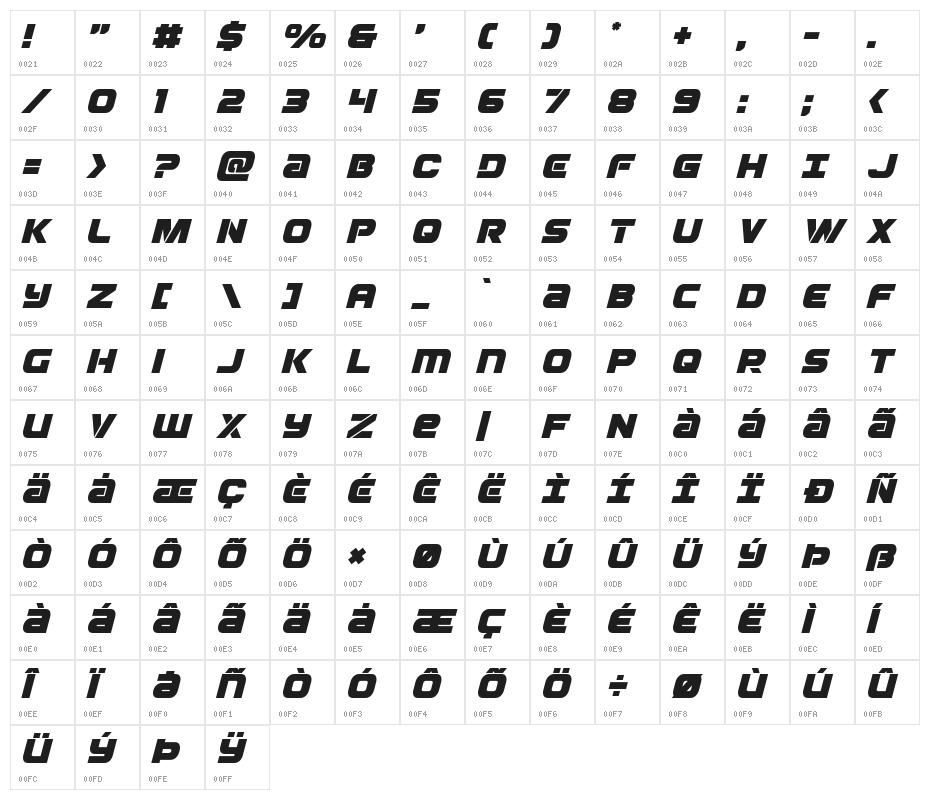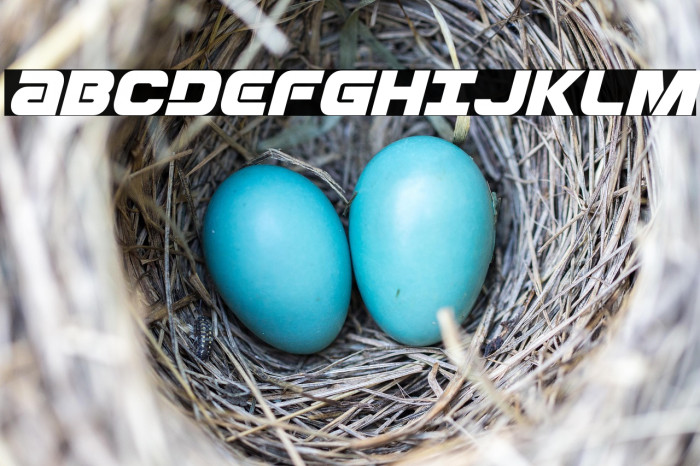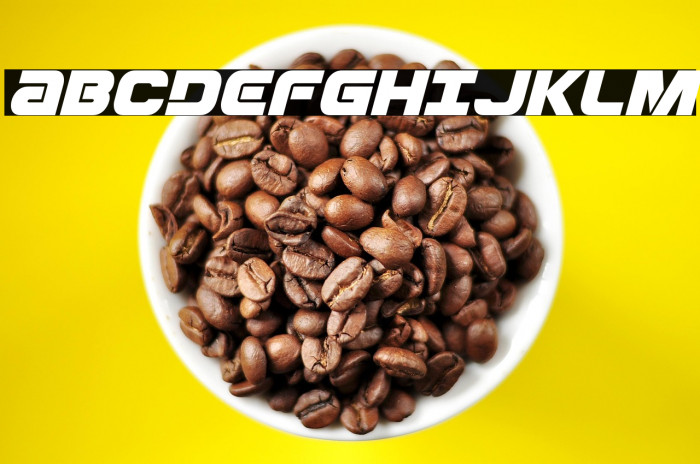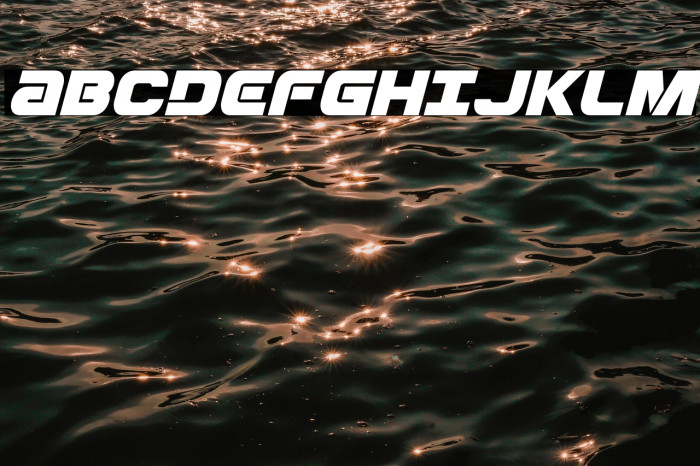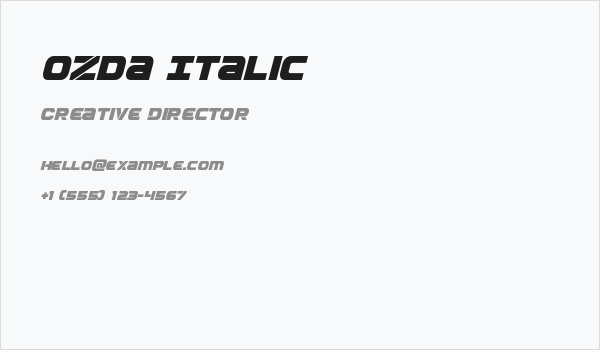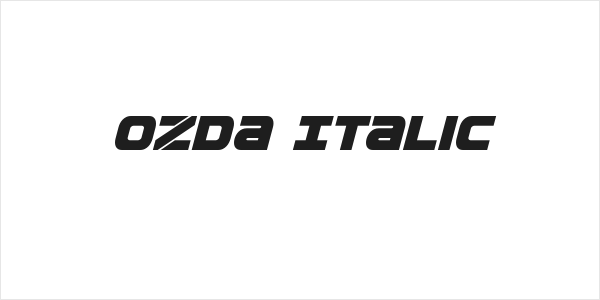
Ozda Italic Font
Ozda Italic Description
This font exhibits a bold and dynamic style with a strong italic slant, giving it a sense of motion and speed. The characters are wide and robust, featuring sharp angles and a futuristic aesthetic. The uppercase and lowercase letters maintain a consistent design, with the lowercase being slightly more compact. The numerals are equally bold, ensuring legibility and impact. Special characters are designed to match the overall bold and angular theme, making them suitable for attention-grabbing designs.
| Proposed Projects | Ideal for sports branding, automotive designs, technology-related projects, and any creative work requiring a modern, energetic look. |